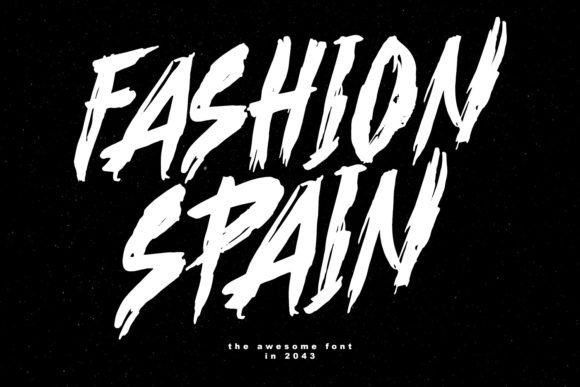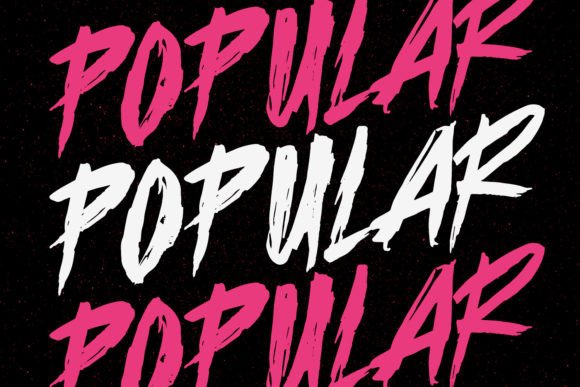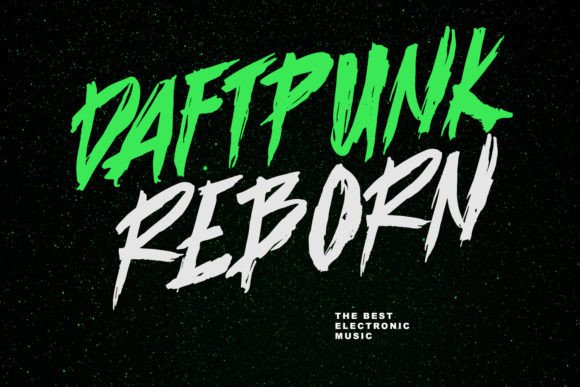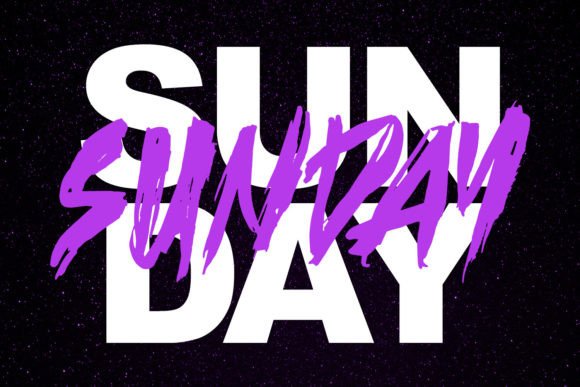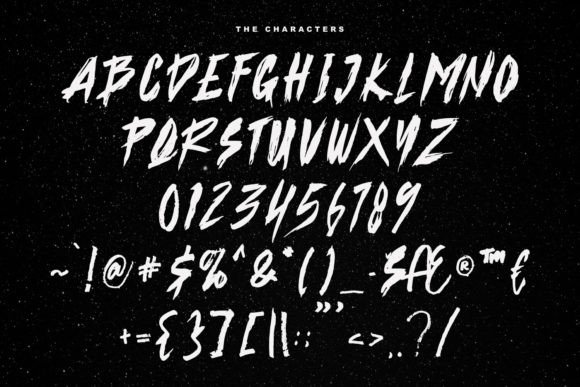
Introduction to Lighten Font
Have you ever been working on a design project and you just can’t seem to capture the perfect feel? The one that says ‘handmade’ without actually being handmade? You know, that authentic brush-handcrafted vibe that just makes your design stand out from the crowd?
Well, we’ve got the solution for you! Introducing Lighten Font, a stunning design resource that’s perfectly suited to add that extra special something to your signature, stationery, logo, typography quotes, website header, branding, and more. With its high-quality, transparent background, Lighten Font is a game-changer for any creative project.
Key Features of Lighten Font
- High-quality font with a transparent background, perfect for creative projects that require a clean and minimalist look.
- Comes in a range of sizes, from 12pt to 72pt, allowing for flexibility in design and creative projects.
- Designed with a focus on readability, making it ideal for body text, headings, and titles in various creative projects.
- Supports high-resolution displays, ensuring crisp and clear text even at large sizes and high resolutions.
Honest Review: Lighten Font
As a designer, I’m always on the lookout for high-quality fonts to elevate my creative projects. Recently, I came across the Lighten Font and decided to give it a try.
What works well: ✨ The Lighten Font has a beautiful, clean design that’s perfect for creating a sense of airiness and openness in my designs. The transparent background is a great touch, allowing the font to blend seamlessly into any background. I also appreciate that it’s a free download, making it a great resource for designers on a budget.
What could be improved: ⚠️ While the font is aesthetically pleasing, I did encounter some limitations when using it in certain design applications. The font’s transparency can sometimes cause issues with layering and composition, so it’s essential to test it thoroughly before using it in a project.
Overall, I’m impressed with the Lighten Font and would definitely recommend it to designers looking for a high-quality, free design resource. Just be aware of the potential limitations, and you’ll be all set to create some stunning designs.
Tips for Getting the Most Out of Lighten Font
Experiment with different font sizes, colors, and styles to create a unique design. Use Lighten Font in combination with other design elements to add depth and visual interest.
Common Use Cases for Lighten Font
Lighten Font is suitable for various creative projects, including logos, brochures, business cards, and social media graphics. Its high-quality design and transparent background make it an ideal choice for designers looking for a versatile font resource.